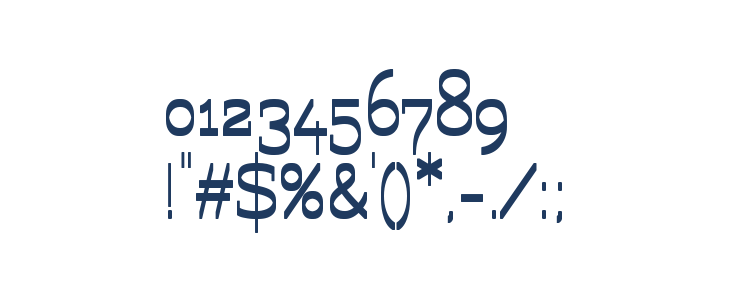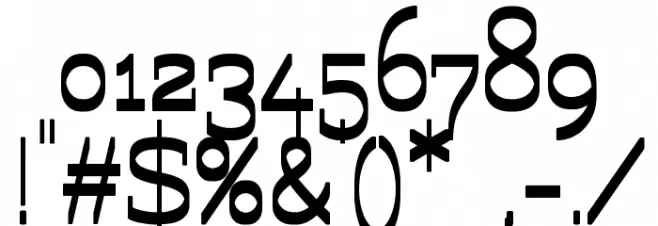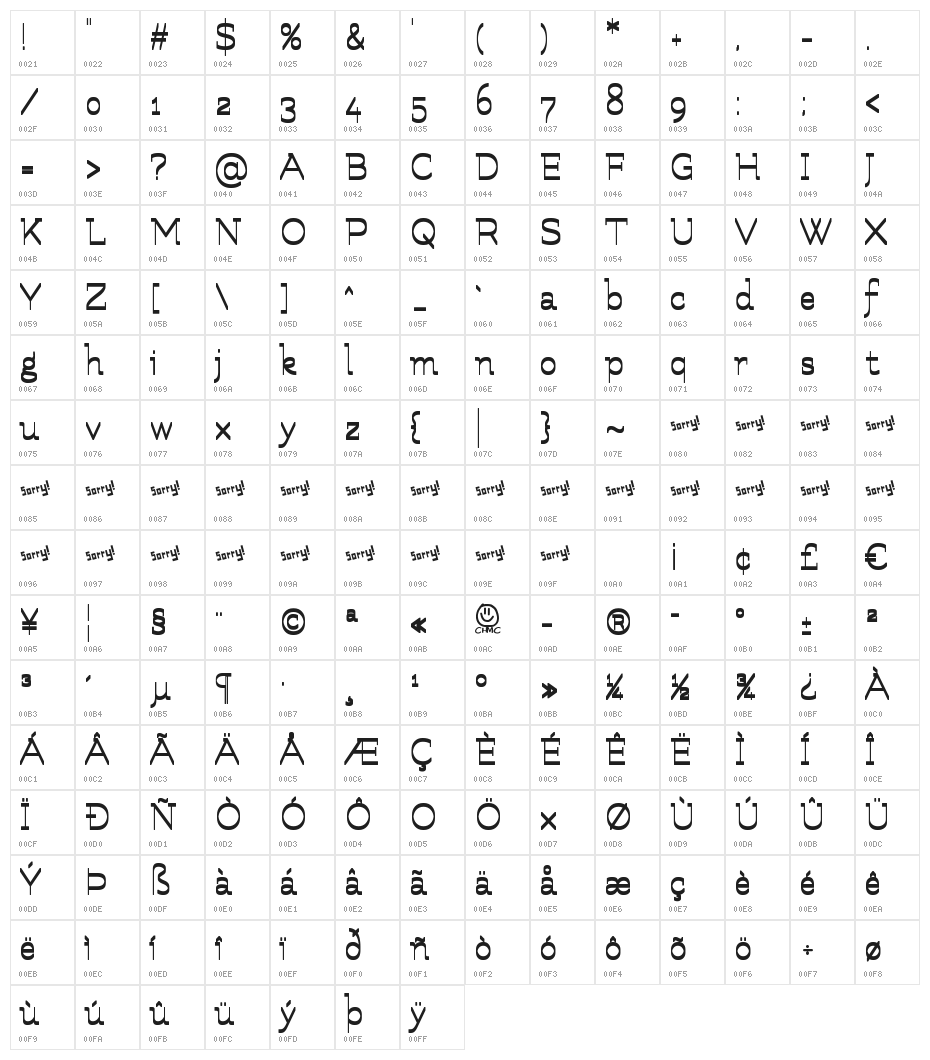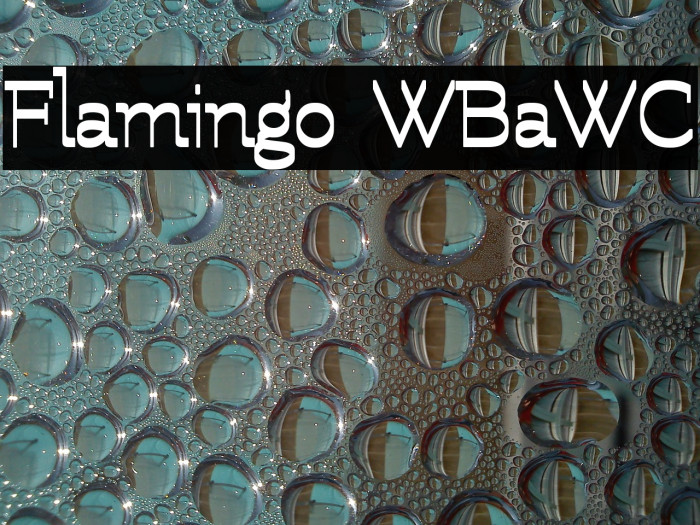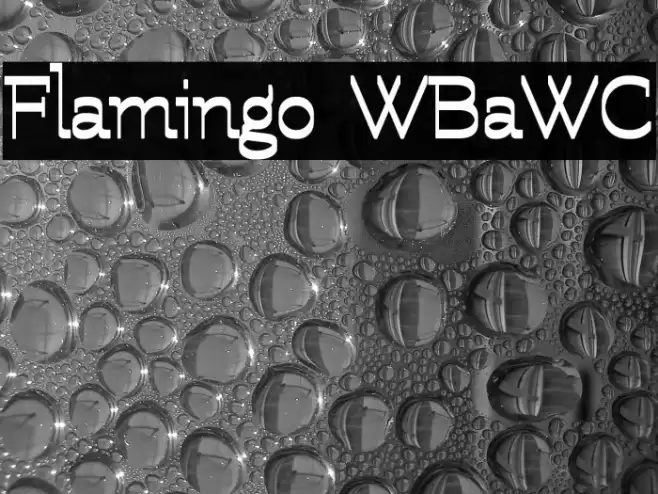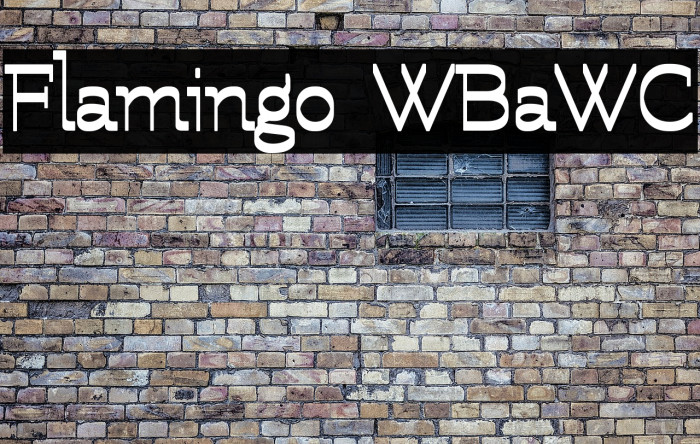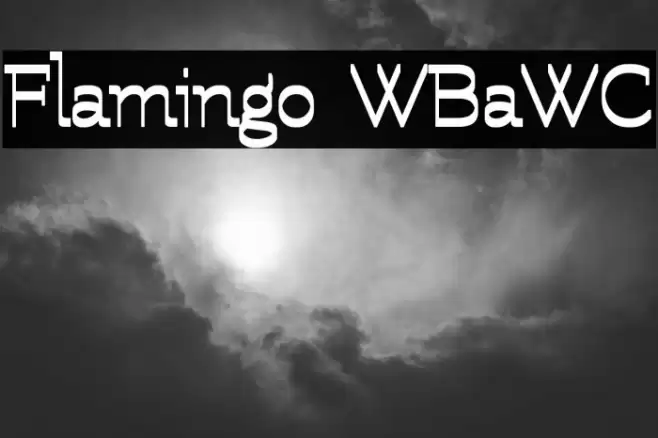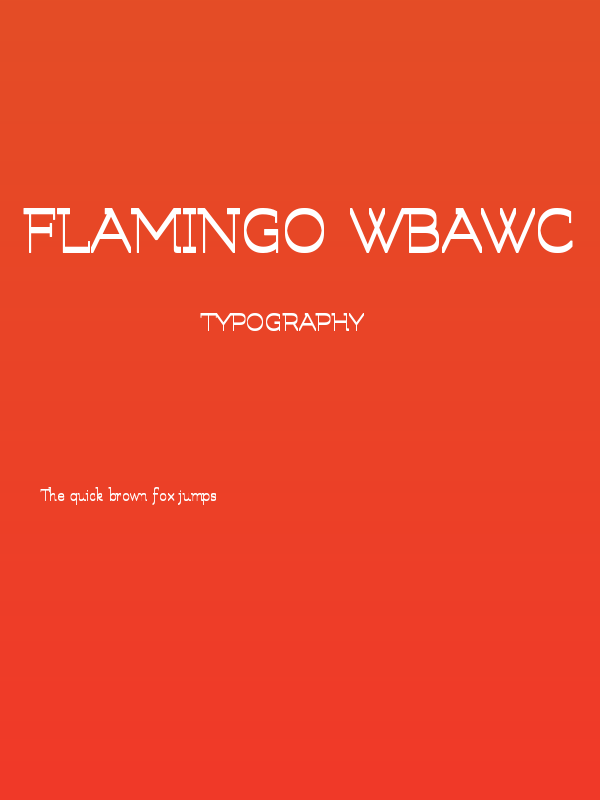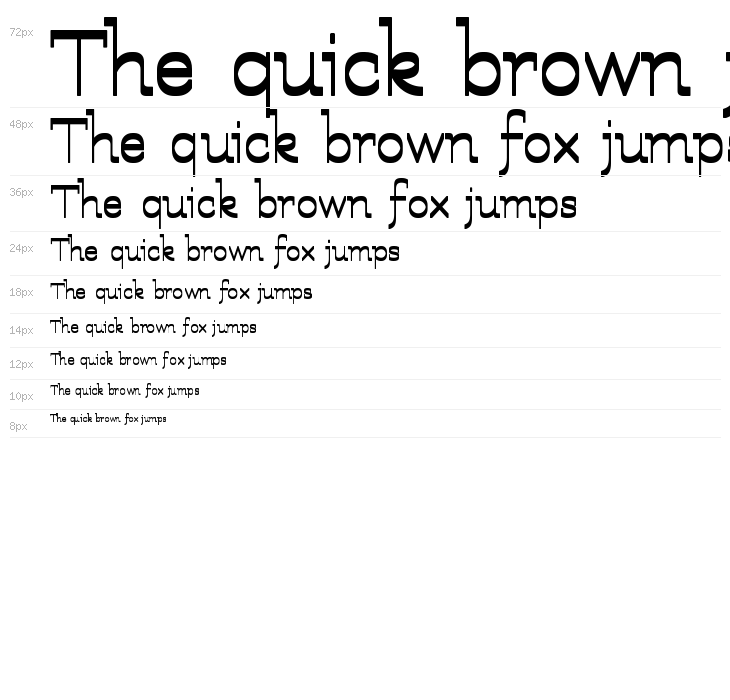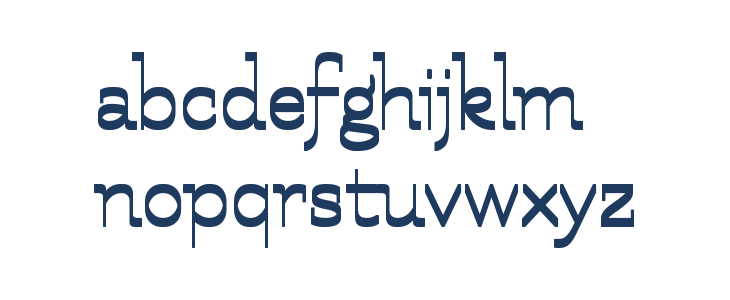
Flamingo WBaWC Font
Flamingo WBaWC Description
This font features a unique blend of geometric and modern elements, characterized by its clean lines and structured form. The uppercase letters exhibit a uniform height with a slightly condensed width, giving them a compact and organized appearance. The lowercase letters maintain a consistent style, with rounded edges that add a touch of softness to the overall design. The numerals are bold and easily legible, making them suitable for various applications. Special characters are designed with the same attention to detail, ensuring a cohesive look across all glyphs. The font's balanced weight and medium contrast make it versatile for both digital and print media.